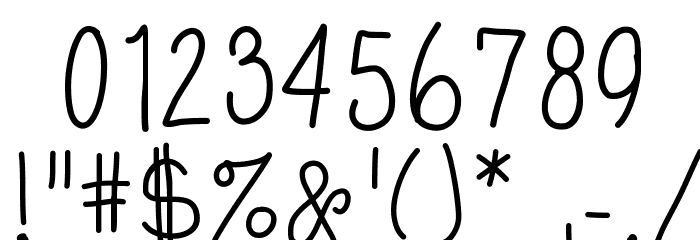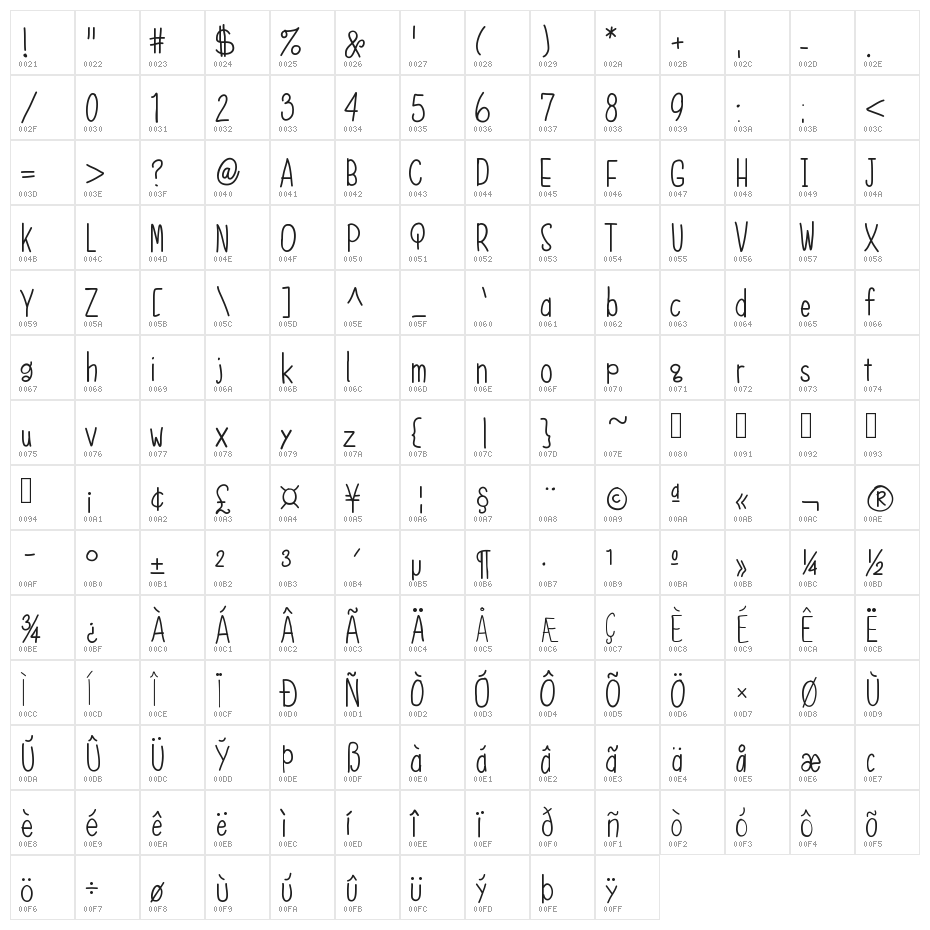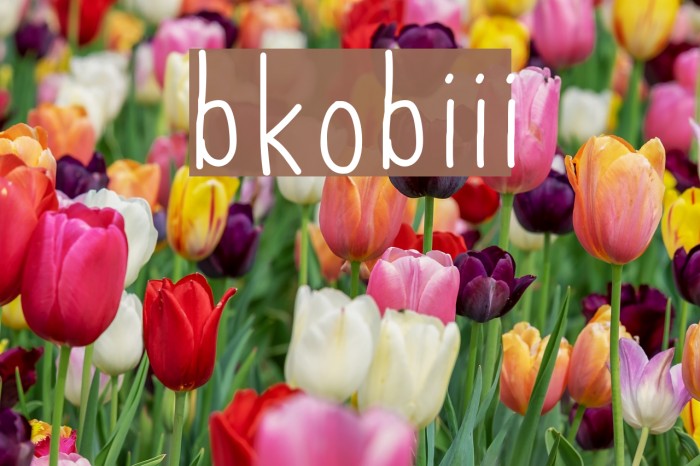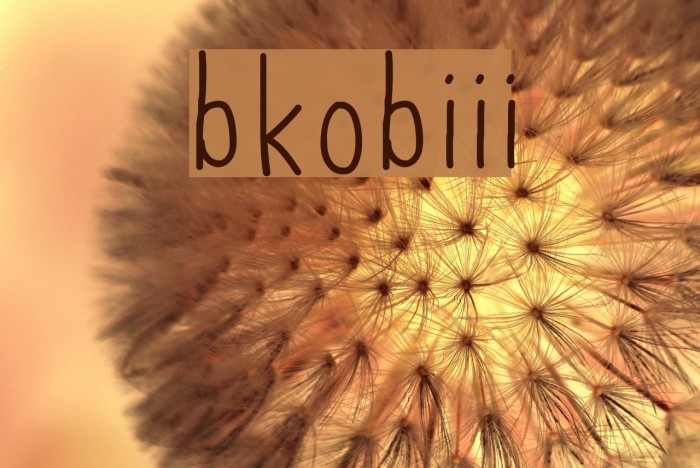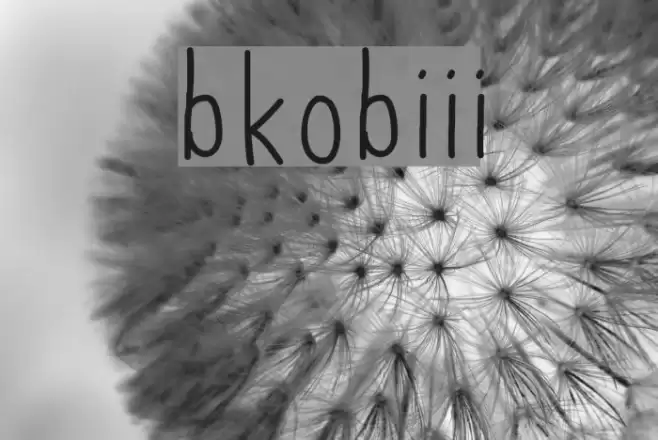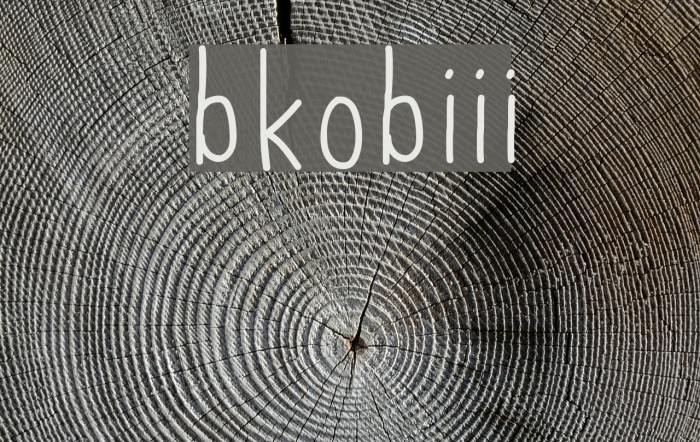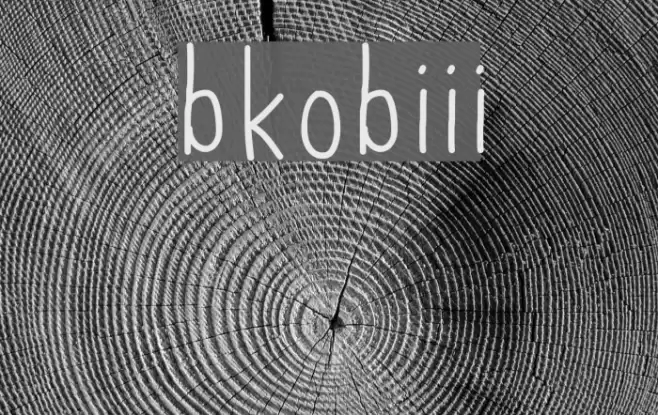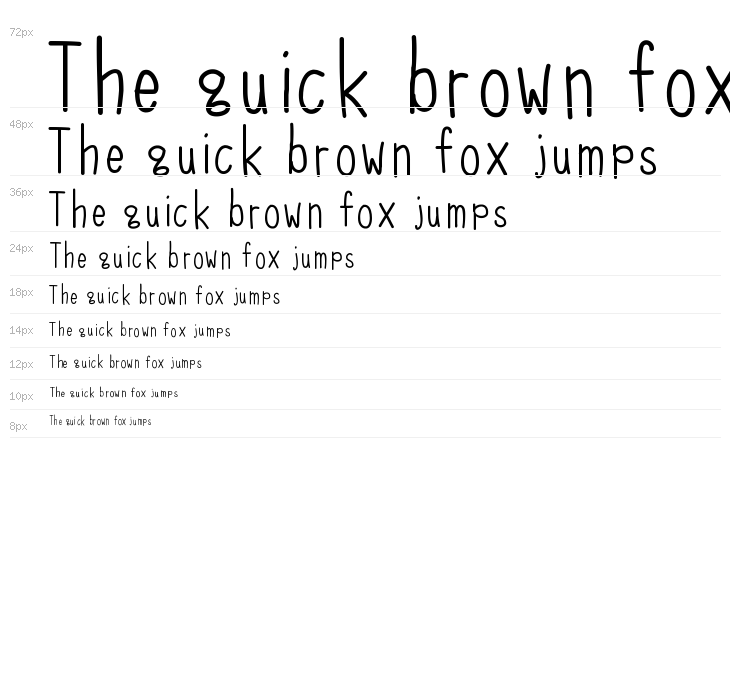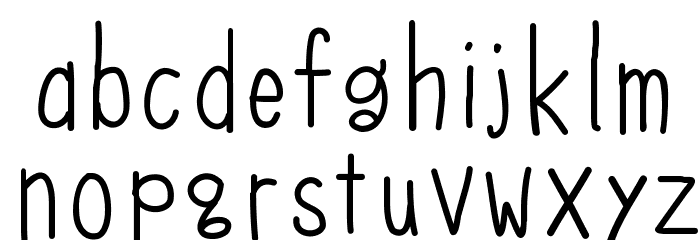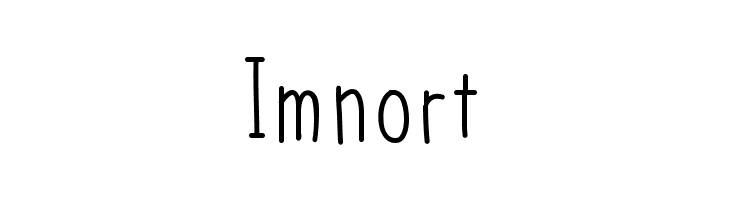
bkobiii Font
bkobiii Description
This font features a playful and informal handwritten style, characterized by its tall, narrow letters with slightly uneven strokes. The uppercase and lowercase letters maintain a consistent height, giving the font a cohesive appearance. The strokes are thin and uniform, contributing to a clean and legible look. The numbers and special characters follow the same design principles, ensuring a harmonious overall feel. This font is ideal for projects that require a casual and friendly tone, such as children's books, greeting cards, or personal blogs.
| Use Case | Headlines, Informal text, Personal projects |
| Proposed Projects | Children's books, greeting cards, personal blogs, informal invitations. |